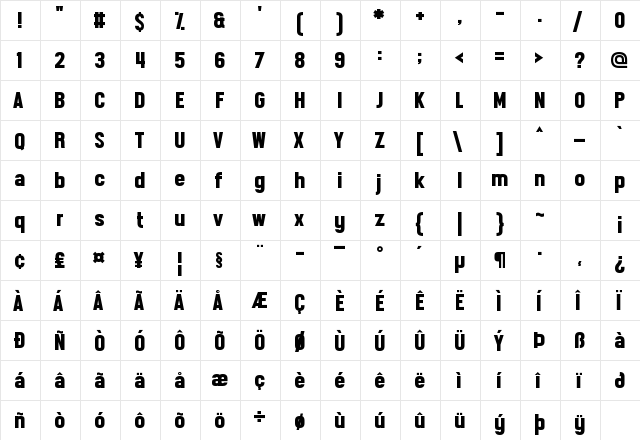
Front Page Neue Regular
Design Context for Front Page Neue Typeface
Front Page Neue is a composed and adaptable typeface that performs quietly and consistently across a wide range of design contexts.